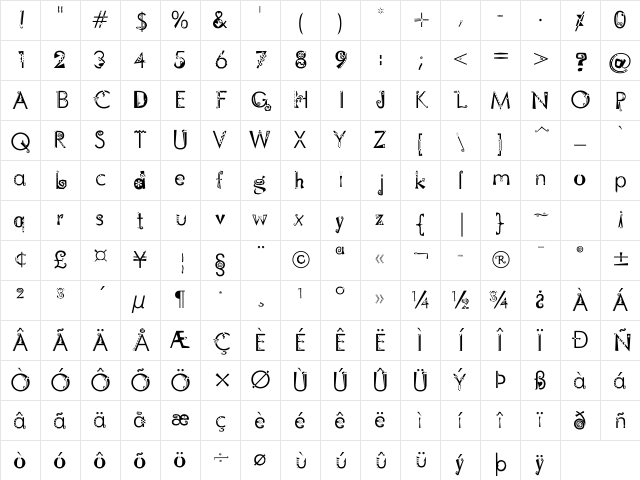
Complete Dare 2 Differ Light glyph index. Displaying only characters natively supported by Dare 2 Differ Light font.
Dare 2 Differ is a composed and adaptable typeface that performs quietly and consistently across a wide range of design contexts. Its slender proportions lend an understated elegance to any composition.